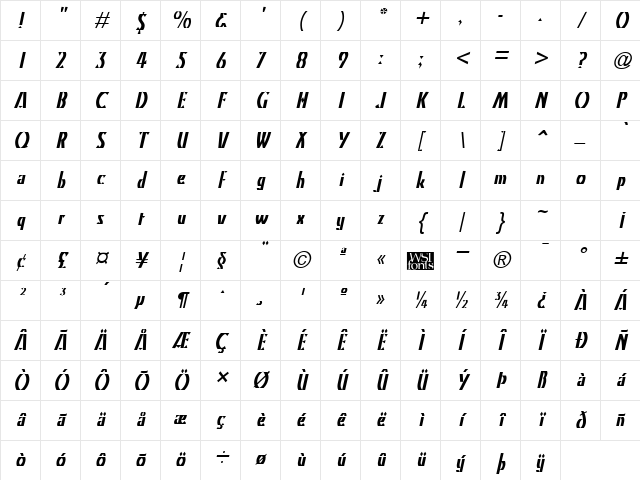
Kristin Italic
Design Context for Kristin
Kristin is a composed and adaptable typeface that performs quietly and consistently across a wide range of design contexts. The slanted form adds forward momentum and visual energy.